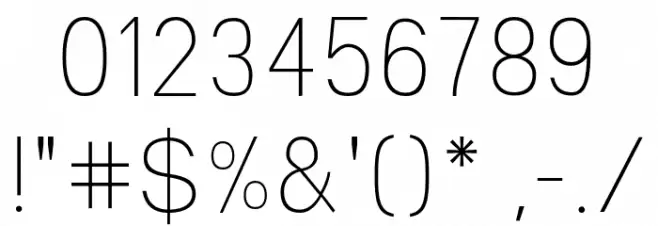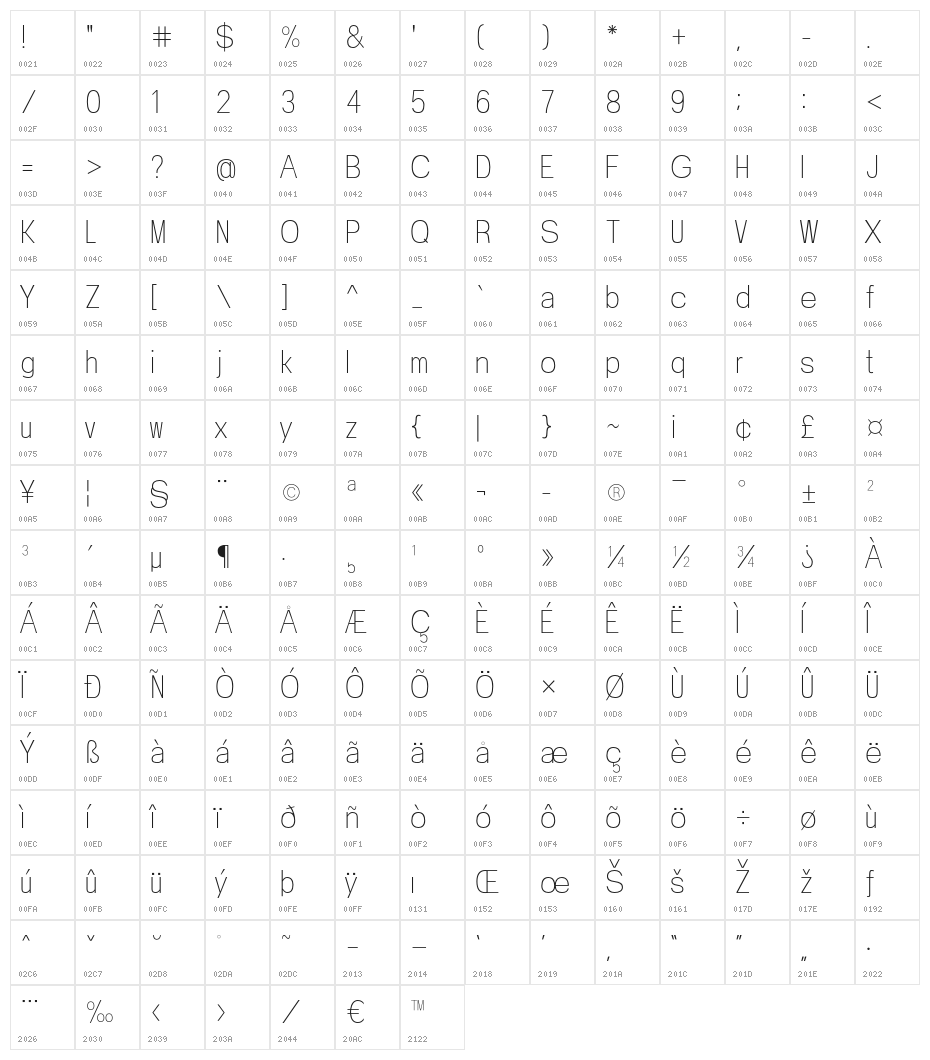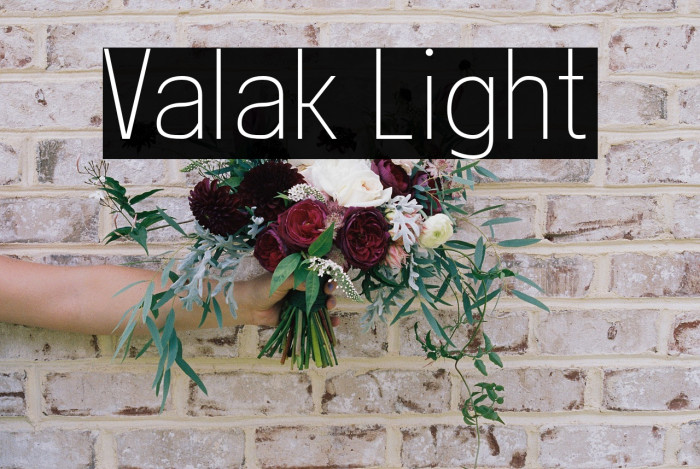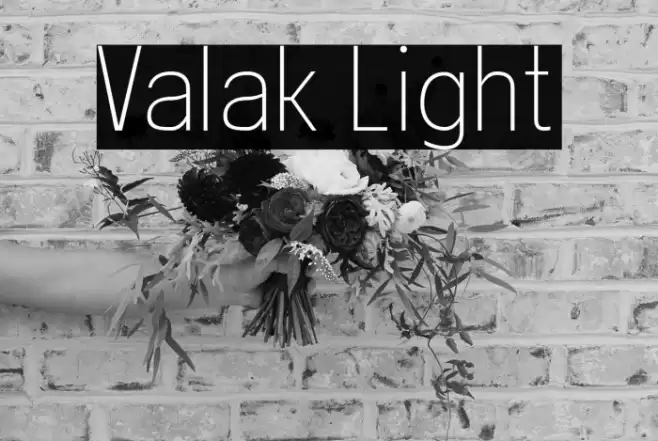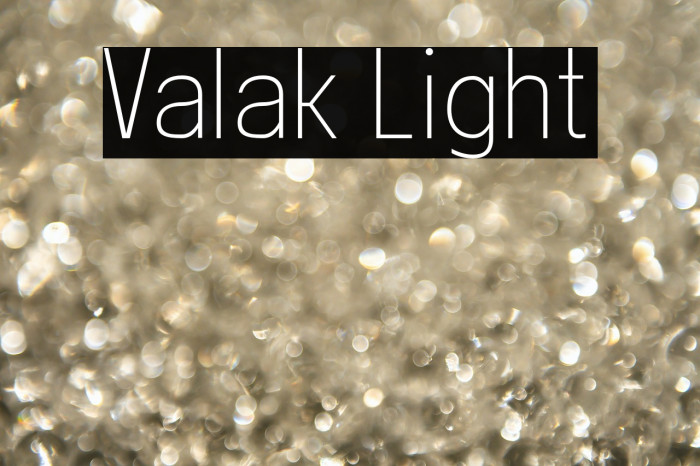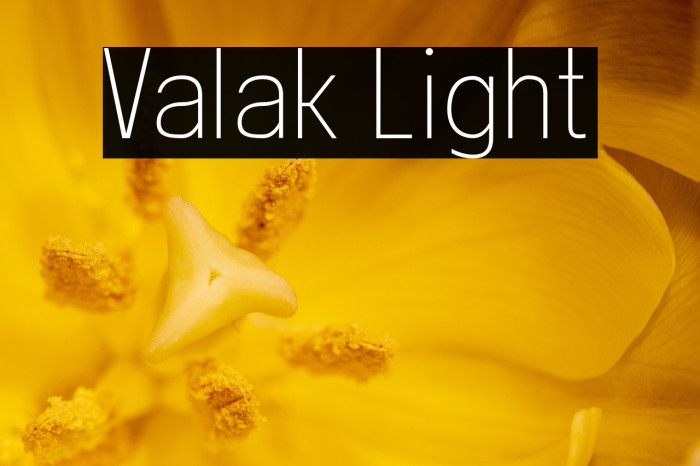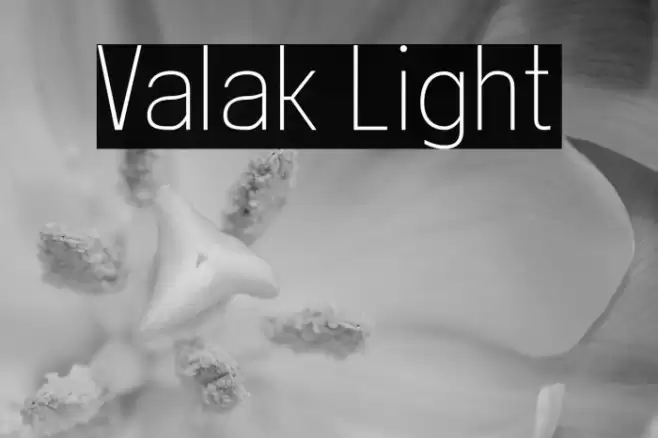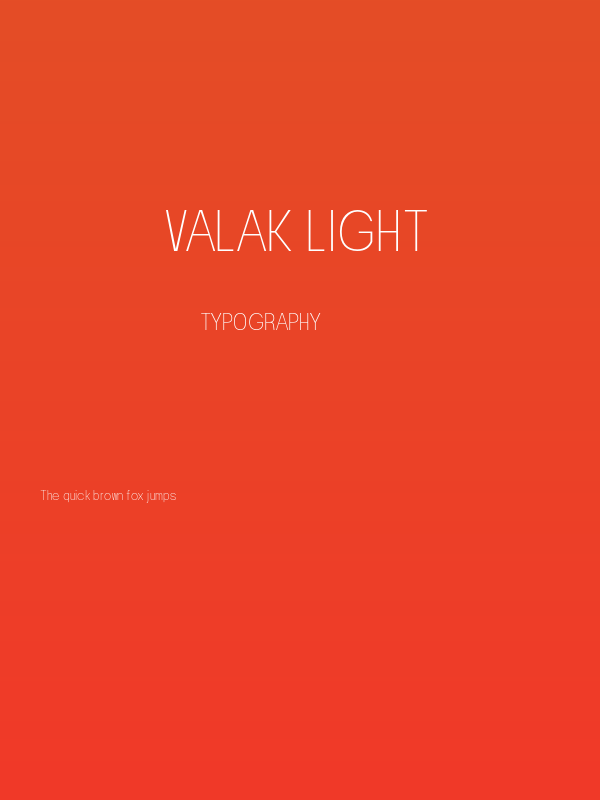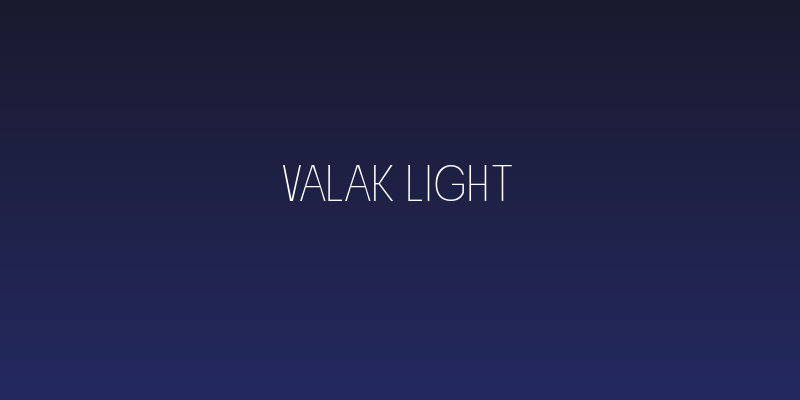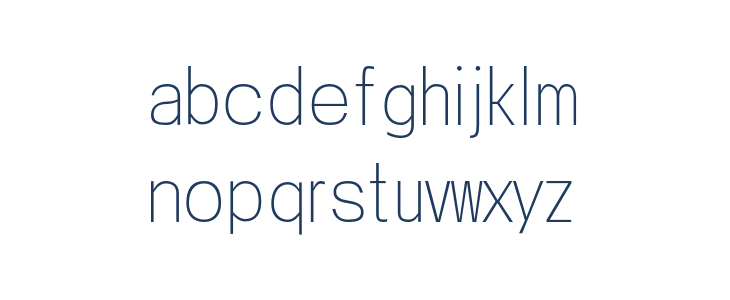
Valak Light Font
Valak Light Description
This font is a sleek and modern sans-serif typeface characterized by its clean lines and minimalistic design. The letters are evenly spaced with a consistent stroke width, giving it a uniform appearance. Its geometric shapes and open counters provide excellent readability, making it suitable for both digital and print media. The font's simplicity and elegance make it versatile for various design applications, from branding to editorial design. Its light weight adds a touch of sophistication, while maintaining a professional and contemporary look.
| Proposed Projects | Ideal for branding, editorial design, websites, and corporate materials. |